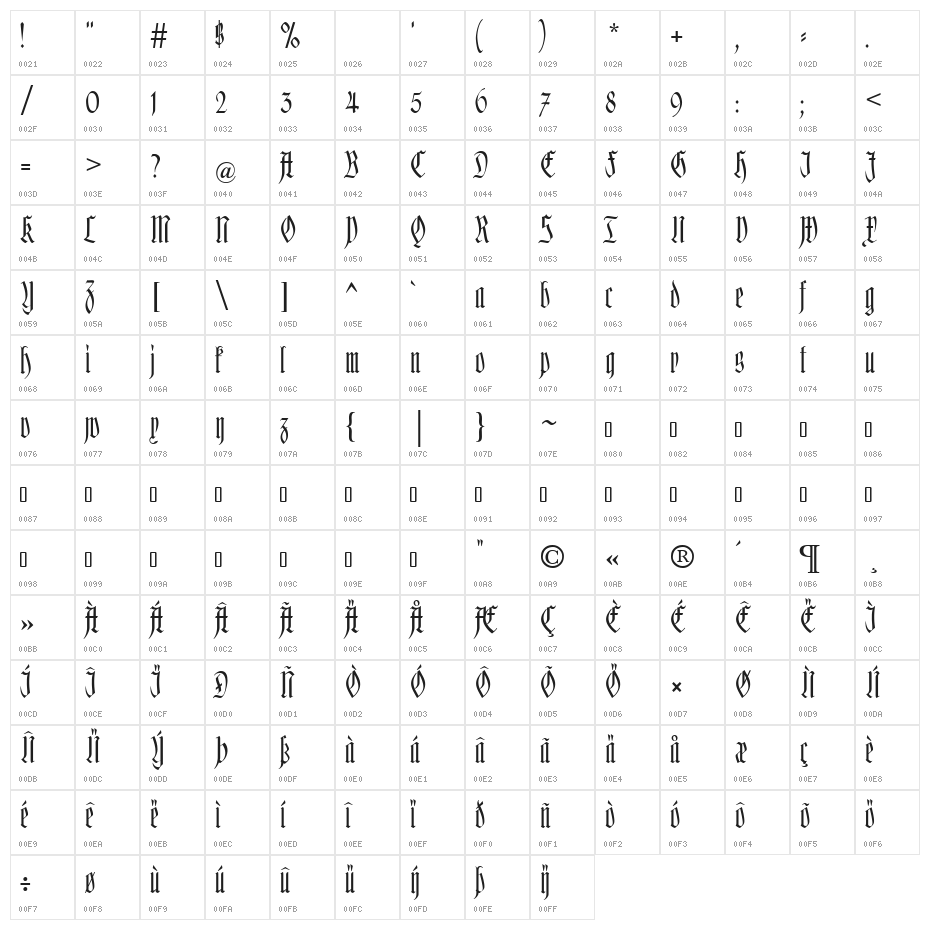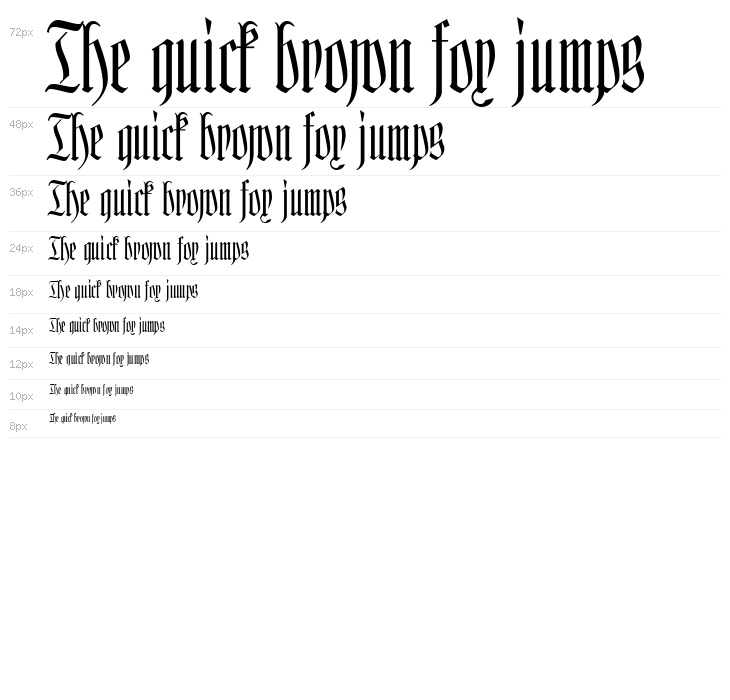
Hofstaetten Font
Hofstaetten Description
This font embodies the traditional elegance and intricate detailing of blackletter typography. Each character is crafted with sharp, angular lines and dramatic flourishes, evoking a sense of historical grandeur. The uppercase letters are particularly ornate, with elongated vertical strokes and pointed serifs that create a striking visual impact. The lowercase letters maintain the same level of detail, with a consistent weight and style that ensures readability while preserving the decorative nature of the font. Numbers and special characters are designed to match the overall aesthetic, providing a cohesive look across all text elements. This font is ideal for projects that require a touch of medieval or gothic flair, offering a unique blend of artistry and functionality.
| Proposed Projects | Suitable for historical documents, invitations, book covers, and branding that requires a gothic or medieval touch. |